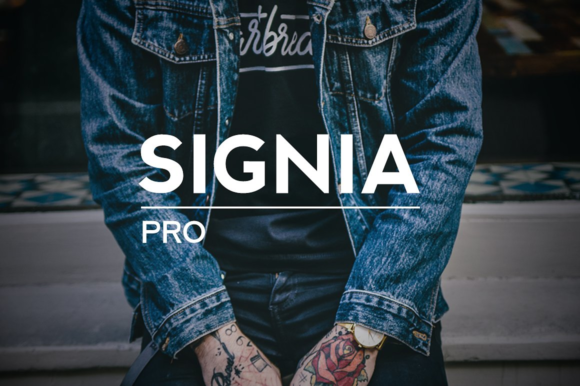
Behold the Signia Font, a captivating sans serif typeface that breathes life into your digital creations, taking them beyond the mundane and into the realm of the extraordinary. Immerse yourself in its meticulously crafted glyphs, each a testament to the beauty of European city street lettering, a style that whispers of timeless elegance. With Signia as your ally, you hold the key to crafting headlines that leap off the screen, demanding attention with their commanding presence. And as you delve into body text, Signia's graceful characters dance across the page, imbuing your content with an air of sophistication and readability.
Unleash your creativity and let Signia guide you through a world of typographic possibilities. Its crisp lines and open forms evoke a sense of modernity, propelling your designs into the future. Experiment with letter spacing to create headlines that dazzle, captivating your audience with their sheer brilliance. Watch in awe as your designs transform into visual masterpieces, leaving an indelible mark on the minds of all who encounter them.
With Signia, you unlock a font that transcends the ordinary, a font that elevates your work to new heights of visual appeal and impact. Its versatility knows no bounds, making it the perfect choice for a myriad of projects, from sleek brochures and captivating presentations to engaging social media posts and eye-catching website designs. Let Signia be your muse, your trusted companion on your creative journey. Embrace its charm, harness its power, and witness the magic unfold as your designs blossom into works of art.